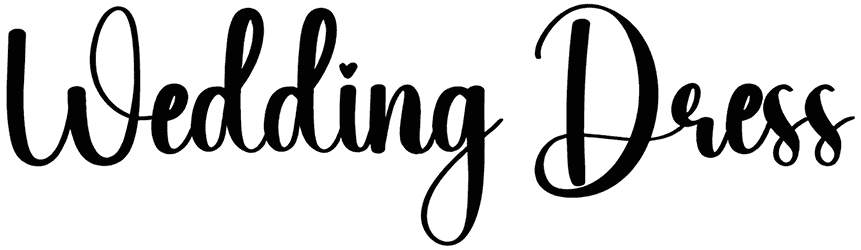
Serinah Font
Serinah has a natural manuscript face that is elaborately adorned and can satisfy your need for any decorative element. This script font is an effective solution for creating a brand identity, which is done in the style of calligraphy that can create an elegant, traditional, and informal style.
Your text’s appearance will be guaranteed by using this wedding font to give off an entertaining atmosphere. So, Serinah is used in office letters, designing business cards, and invitations for direct communication.